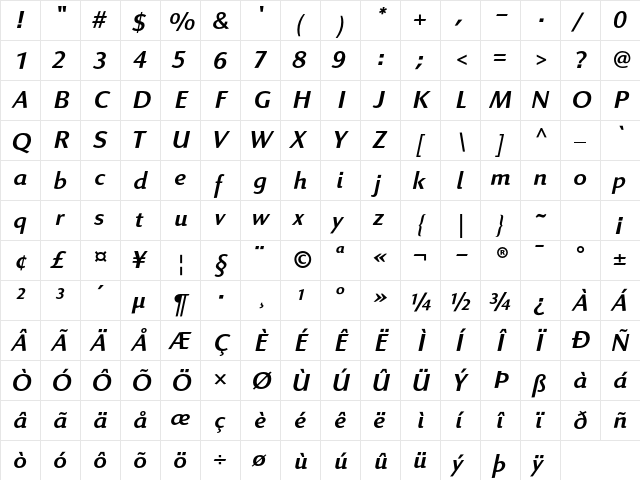
Linex Sans Std Italic
Design Context for Linex Sans Std Typeface
Linex Sans Std is a composed and adaptable typeface that performs quietly and consistently across a wide range of design contexts. The slanted form adds forward momentum and visual energy.
Pro Tip: Try Linex Sans Std for annotation and caption copy alongside an upright companion — the contrast in angle creates a dynamic but ordered typographic system.